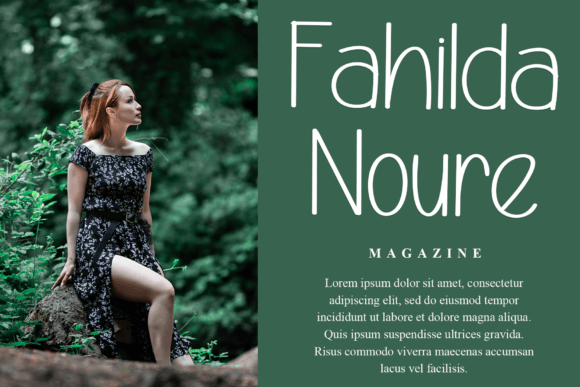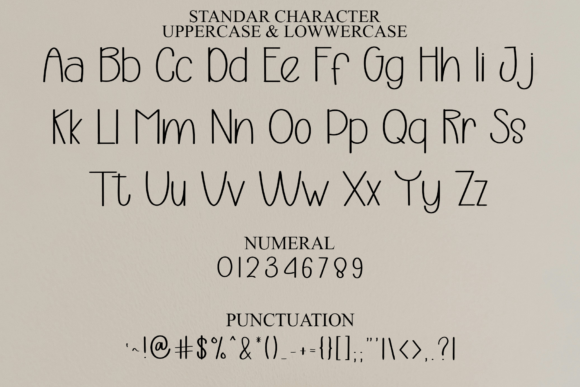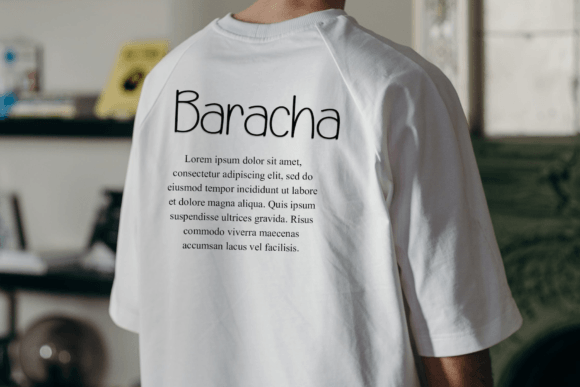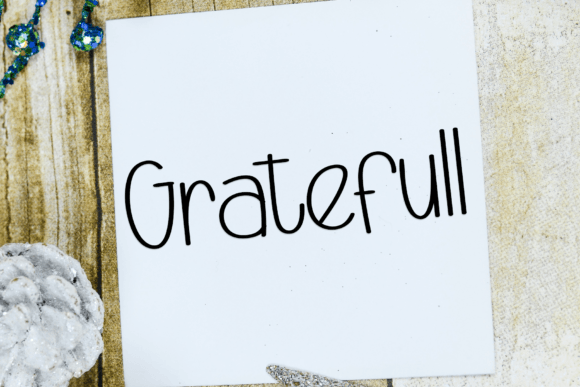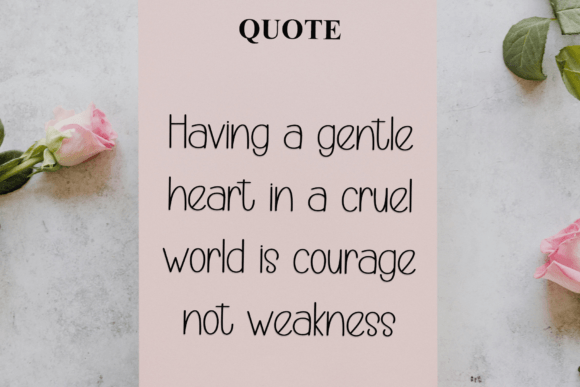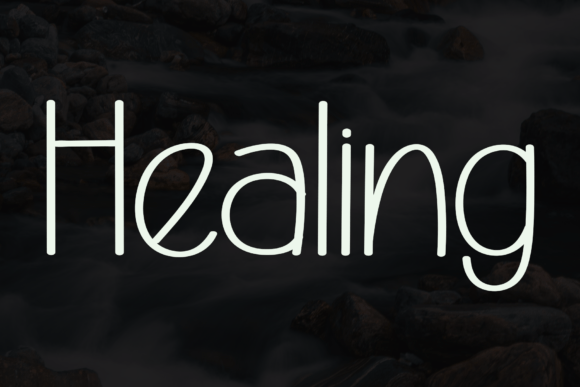
Introducing Advanture Font: Elevate Your Designs with Elegance and Sophistication
In the world of typography, a font can make or break a design. For designers and crafters seeking to infuse their projects with a touch of elegance and modernity, Advanture Font is an exceptional choice. This beautiful, refined handwritten font is designed to bring a classy and sophisticated vibe to various design applications, including logos, branding, invitations, stationery, wedding designs, social media posts, and more.
What Makes Advanture Font Stand Out?
Advanture Font boasts a unique blend of traditional handwriting and contemporary design elements, making it a versatile and stylish addition to any designer’s toolkit. Here are some key features that set Advanture Font apart:
- Classy and Elegant Design: Advanture Font features flowing lines and delicate curves, exuding a sense of sophistication and refinement.
- Modern Look: Despite its elegant feel, Advanture Font maintains a modern edge, ensuring your designs stay current and on-trend.
- Versatile Applications: From logos and branding to invitations, stationery, and wedding designs, Advanture Font can elevate a wide range of projects.
- PUA Encoded: This font is PUA (Private Use Area) encoded, allowing easy access to an extensive range of glyphs and ligatures, making your design process smoother and more creative.
The Benefits of Using Advanture Font in Your Designs
Choosing the right font for your design project is crucial, and Advanture Font offers numerous benefits that can enhance your work:
- Unique and Memorable: The distinctive style of Advanture Font can help your designs stand out, making them more memorable to your audience.
- Time-Saving: With its PUA encoding, you can easily access a wide variety of glyphs and ligatures without the hassle, saving you time and boosting productivity.
- Cross-Platform Compatibility: Advanture Font is designed to work seamlessly across different platforms and devices, ensuring your designs look great everywhere.
- Customization: The font’s versatility allows for easy customization to fit your project’s specific needs, giving you the flexibility to experiment with different styles and effects.
Tips for Maximizing the Impact of Advanture Font
To get the most out of Advanture Font, consider the following design tips:
- Pair with Complementary Fonts: Combine Advanture Font with other fonts that complement its style to create visual interest and hierarchy in your designs.
- Experiment with Colors: Don’t be afraid to try out different colors and gradients to add depth and emotion to your text.
- Play with Ligatures: Take advantage of Advanture Font’s ligatures to add a unique touch to your designs and make them stand out.
- Consider Your Audience: Tailor your font size, style, and color choices to your target audience’s preferences and your project’s context.
Advanture Font is a versatile and elegant handwritten font that can elevate your designs to new heights. Its classy, modern look, combined with PUA encoding for easy access to glyphs and ligatures, makes it an excellent choice for designers and crafters looking to add a touch of sophistication to their projects. Whether you’re working on logos, branding, invitations, or social media posts, Advanture Font offers the perfect blend of style, versatility, and creativity.